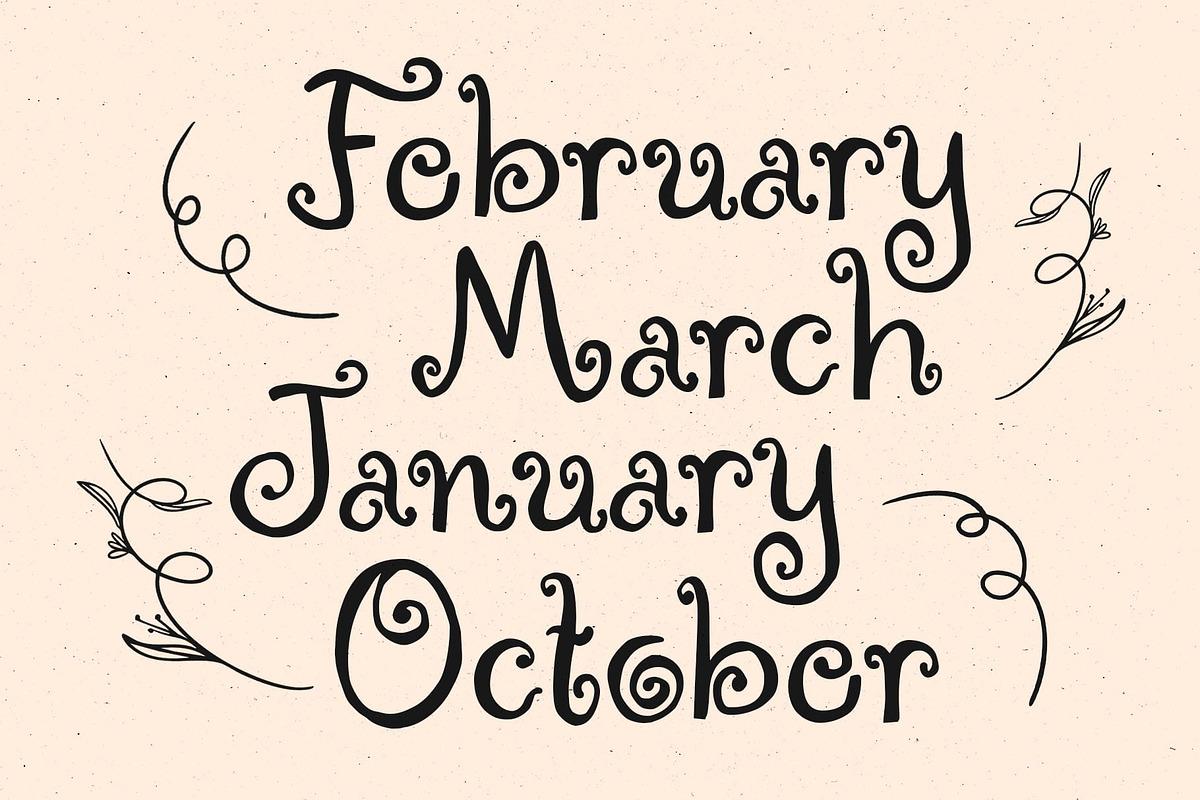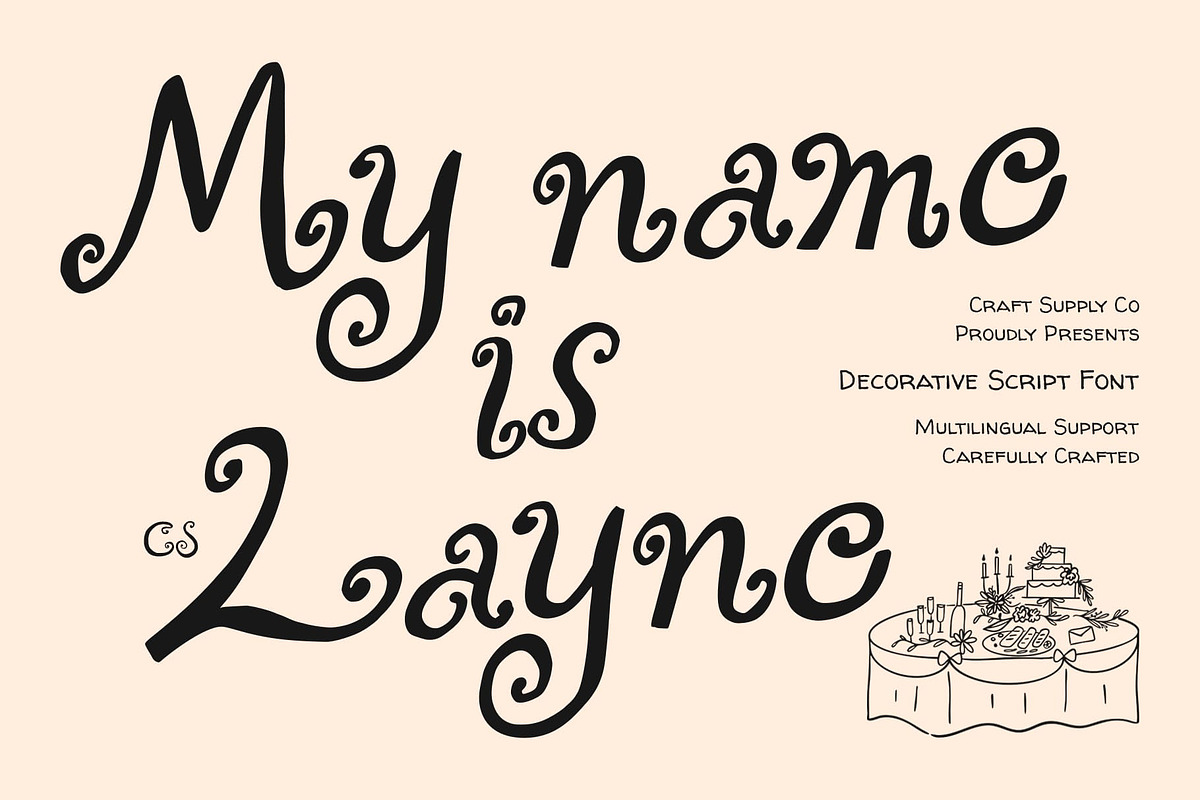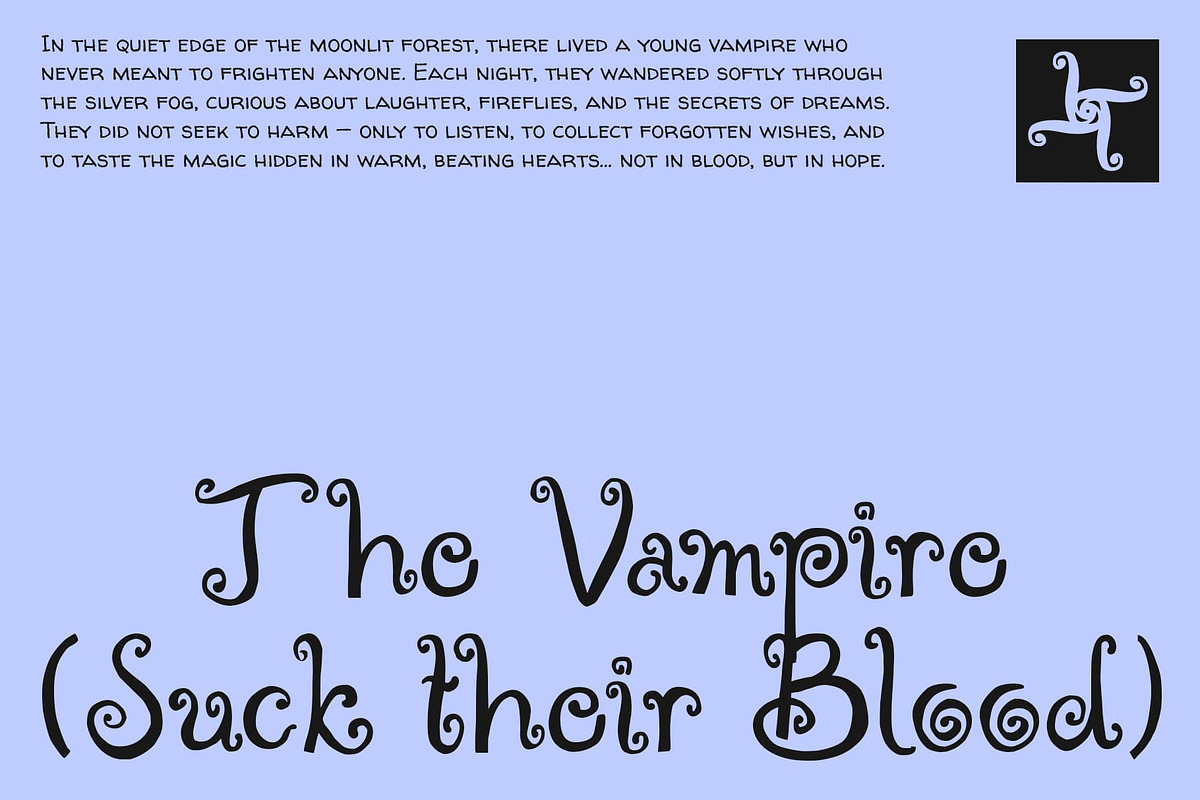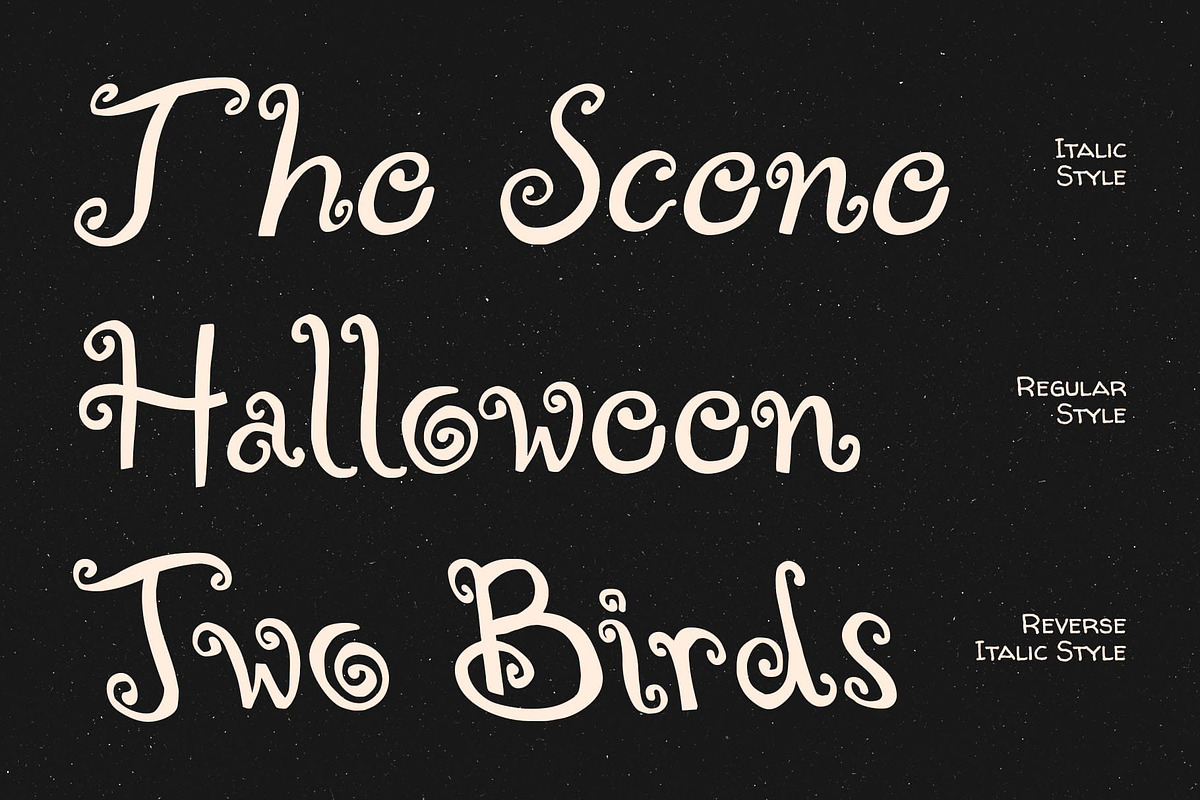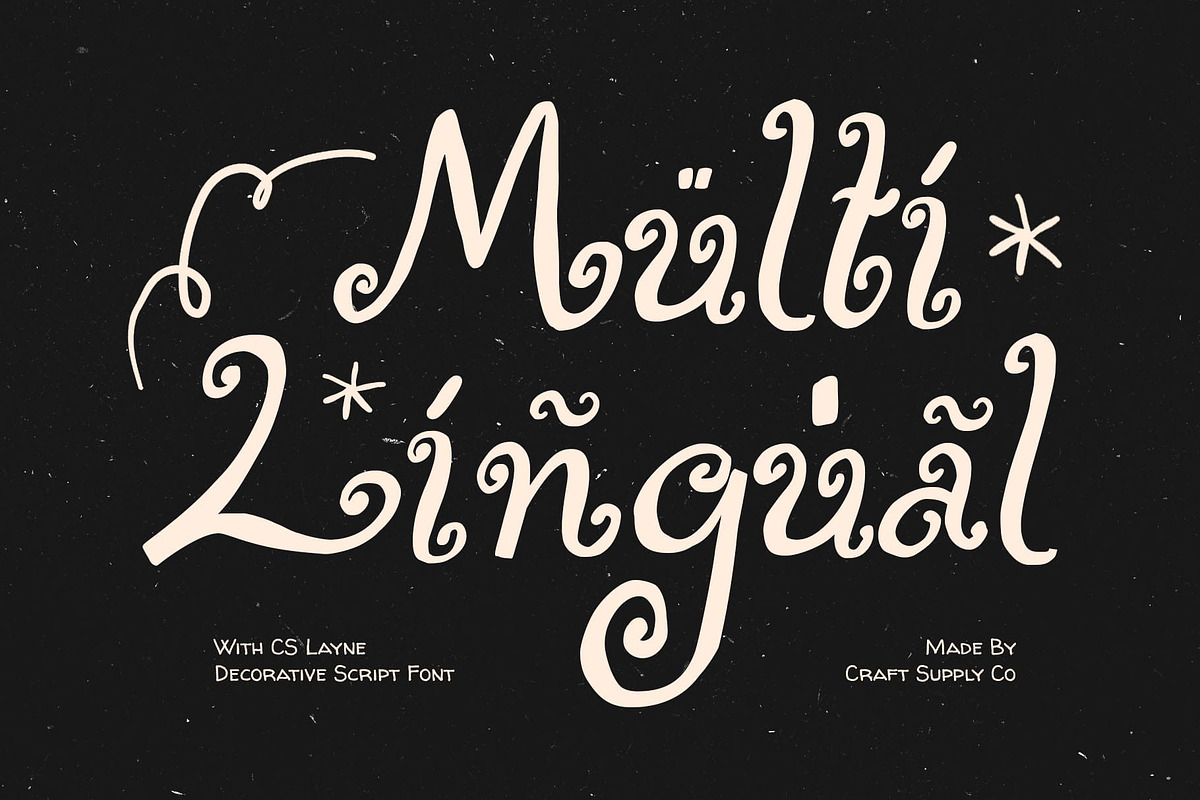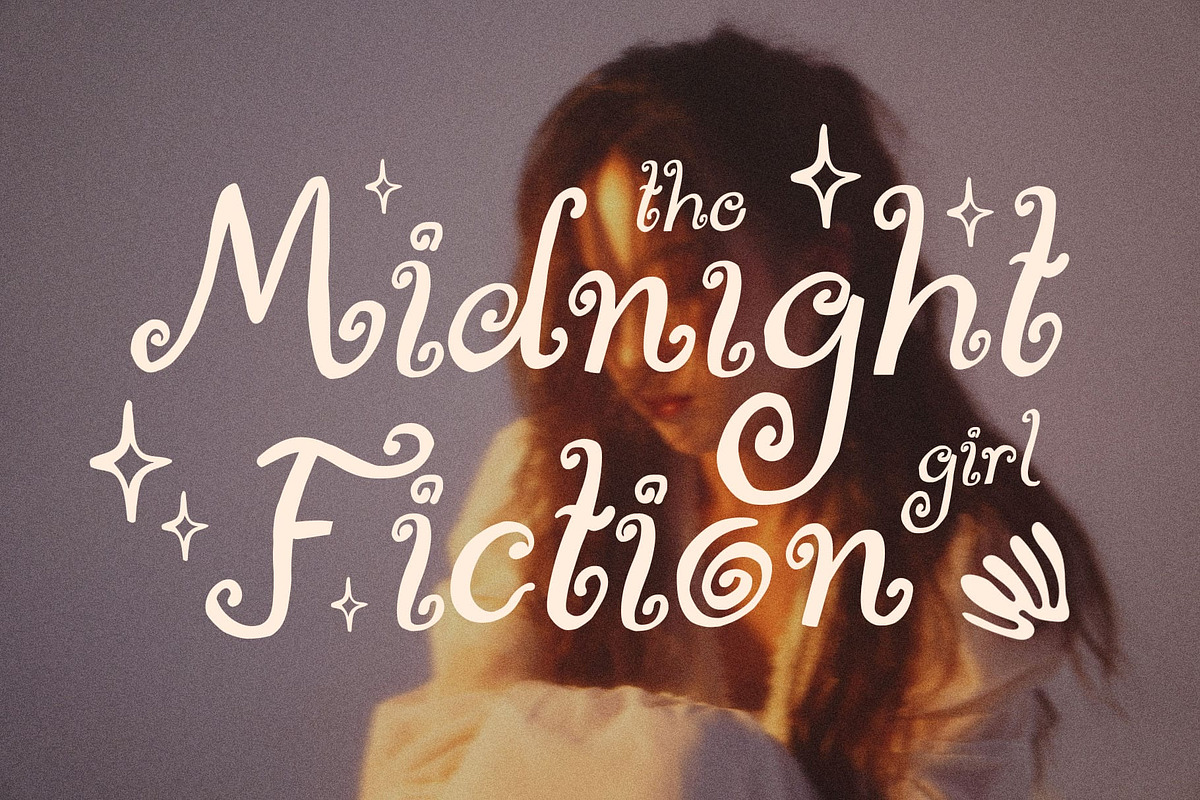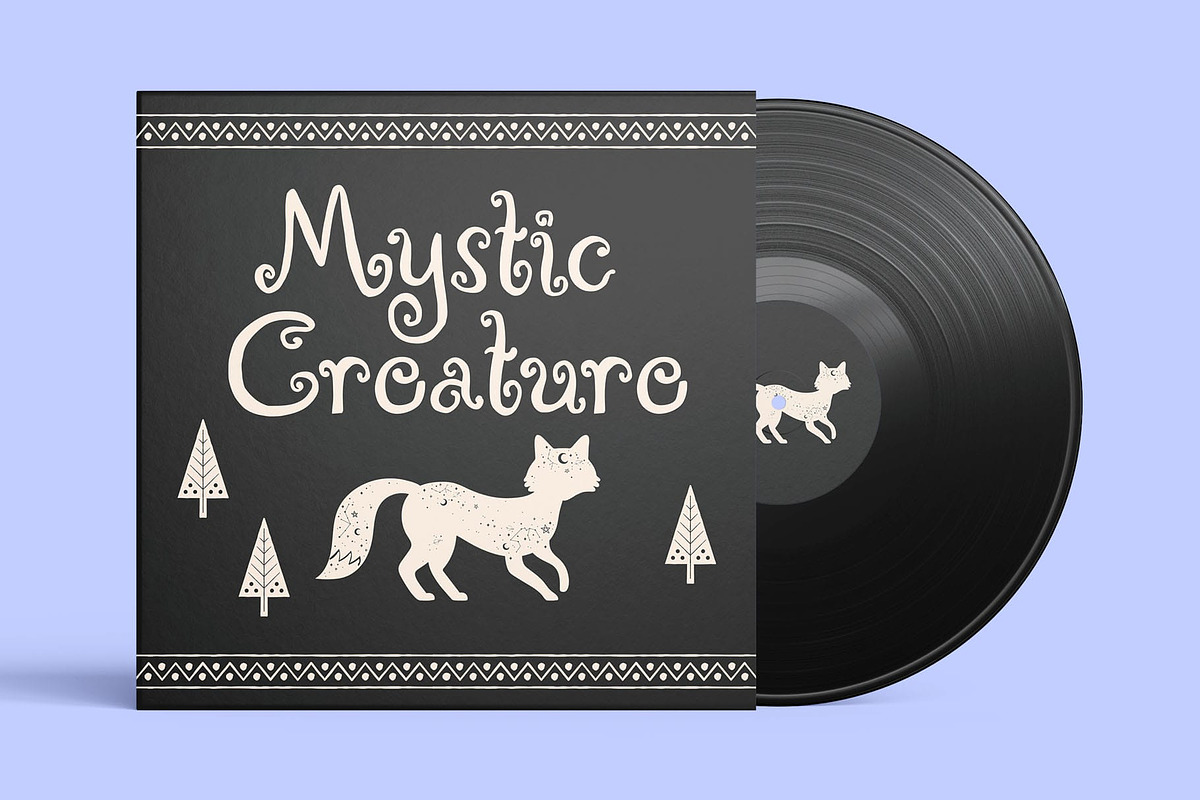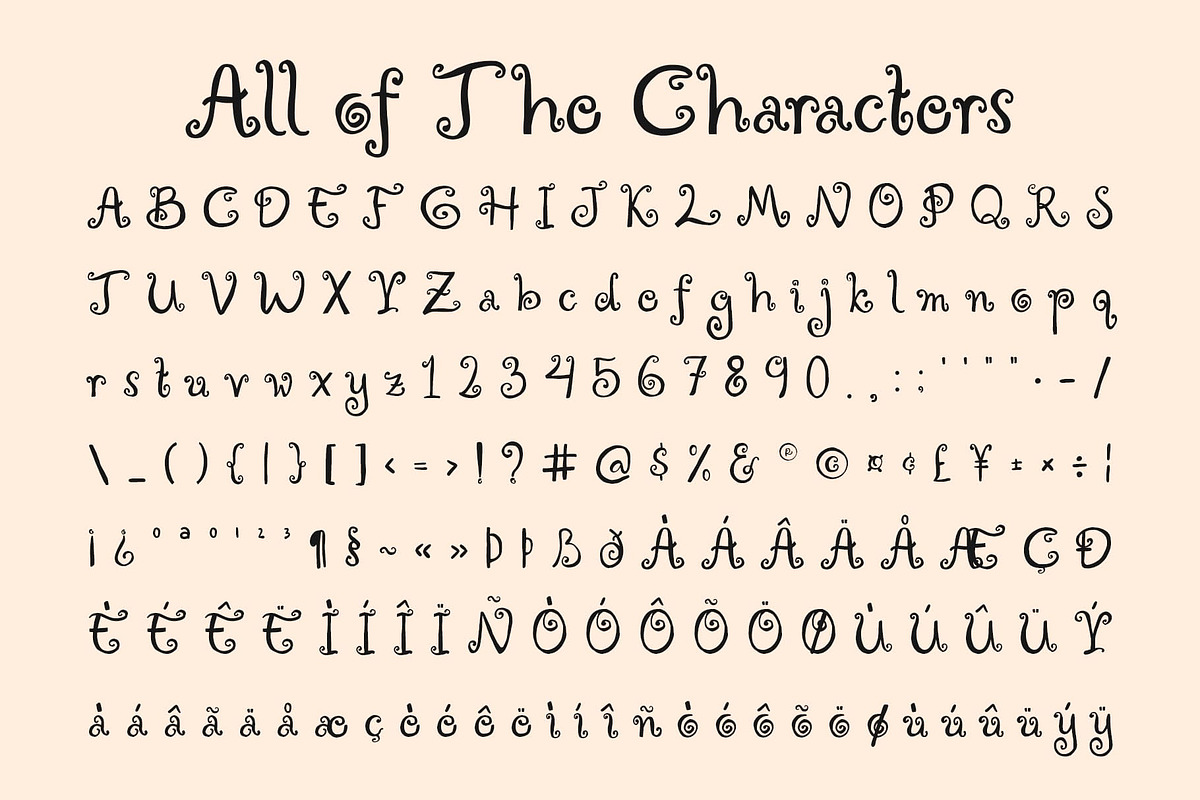
CS Layne – Whimsical Font
CS Layne – Whimsical Energy with Fantasy Charm
Playful Display Font with Character This is a distinctive display font infused with fantasy charm and imaginative spirit. Its whimsical details and creative forms make it stand out in any composition, evoking a sense of magic and individuality. Designed for designers who love expressive typography, this font transforms ordinary words into captivating visual statements.
Drawn Texture for Artistic Personality The subtle drawn texture adds a handcrafted touch that enhances its organic and playful nature. Each stroke feels alive, bringing warmth and authenticity to the design. This handcrafted quality makes this font perfect for projects that seek an artistic and imaginative aesthetic one that feels both personal and visually rich.
Ideal for Whimsical and Creative Design From whimsical branding and fantasy-inspired posters to expressive music visuals, this font thrives in creative spaces. It carries a vibrant energy that instantly captures attention while maintaining a charming softness, making it a versatile choice for imaginative storytelling and artistic expression.
Expressive Typography with a Magical Twist This font embodies the perfect balance between creativity and charm. Its fantasy-inspired forms and playful textures create a sense of wonder and delight, ideal for designers aiming to craft visuals that feel enchanting, energetic, and full of personality.